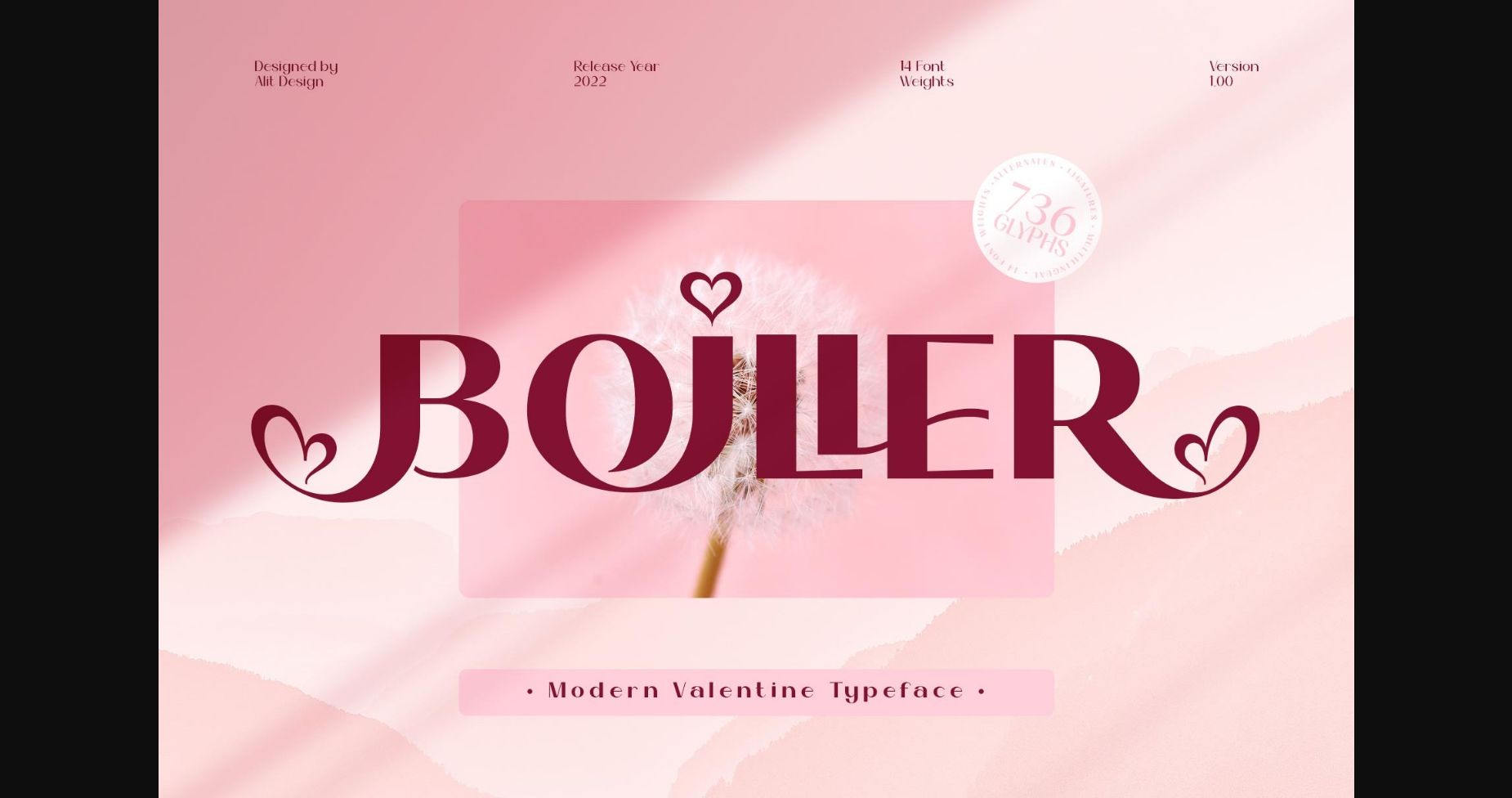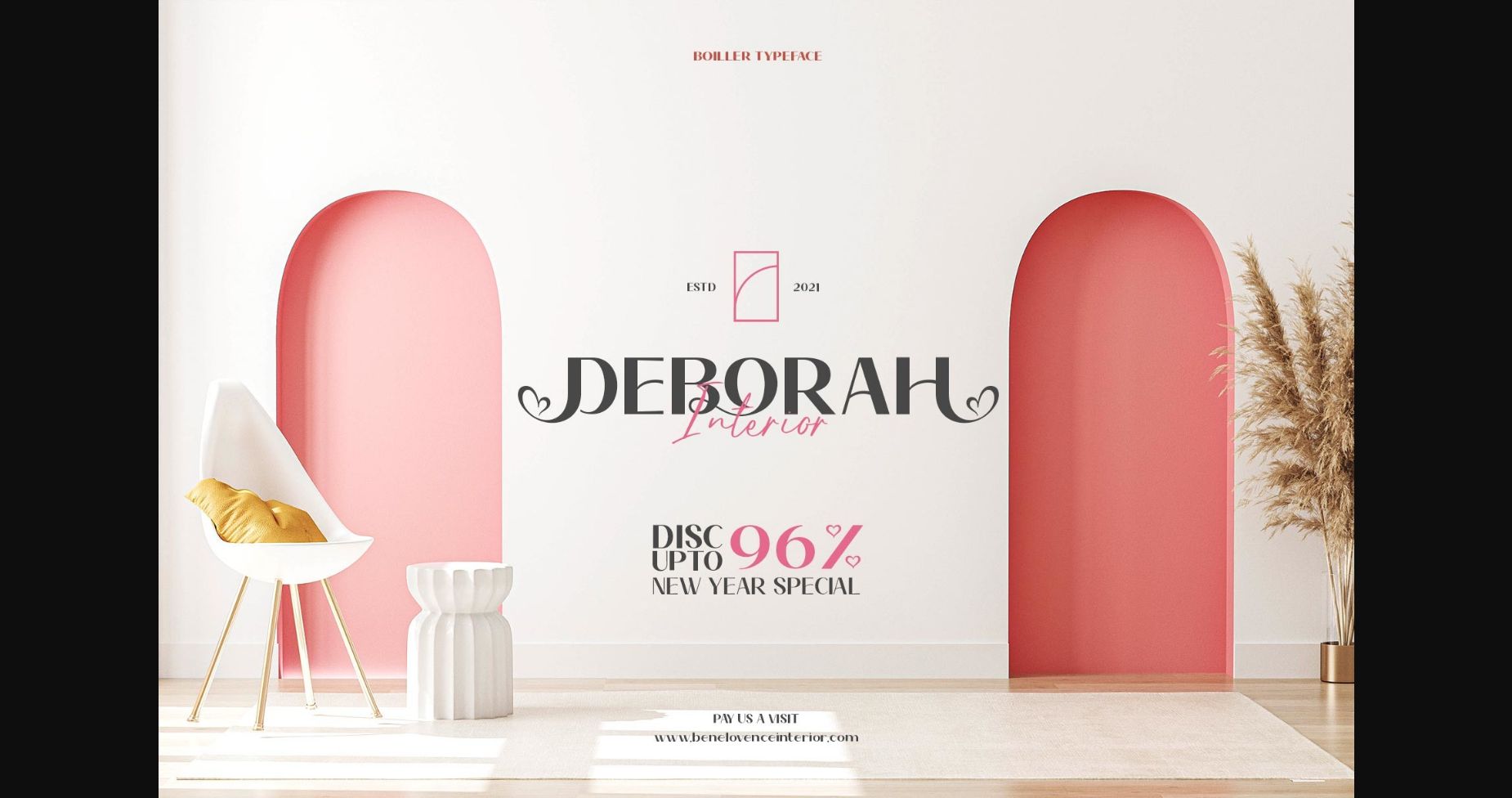
About Boiller Font
Boiller is a stylish and elegant sans serif font. It is PUA encoded which means you can access all glyphs and swashes with ease! No matter the topic, this font will be an incredible asset to your fonts’ library, as it has the potential to elevate any creation.